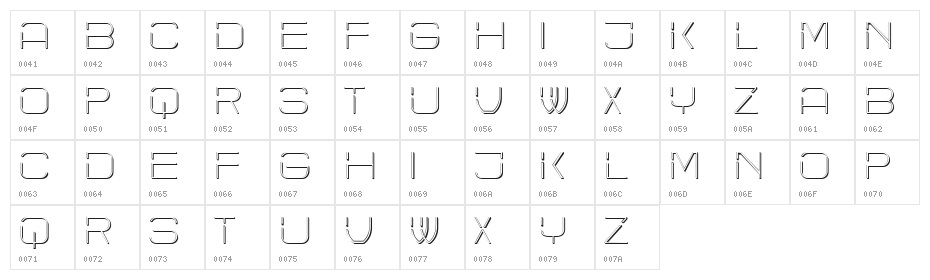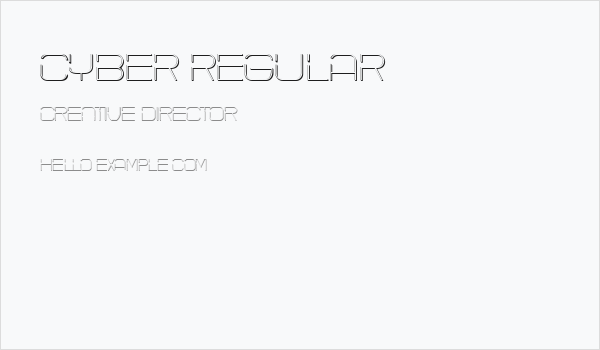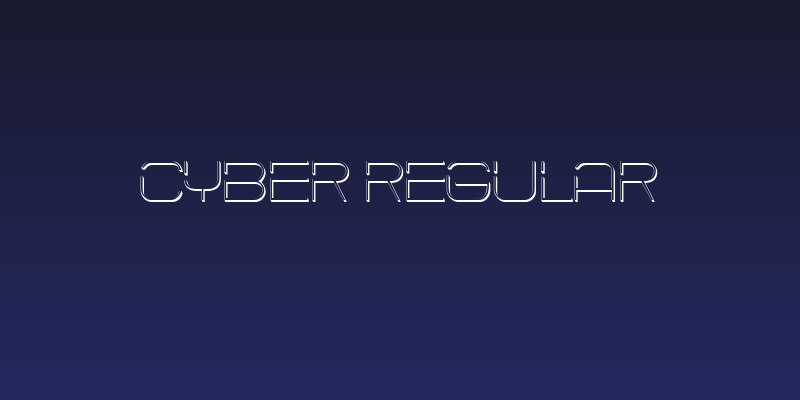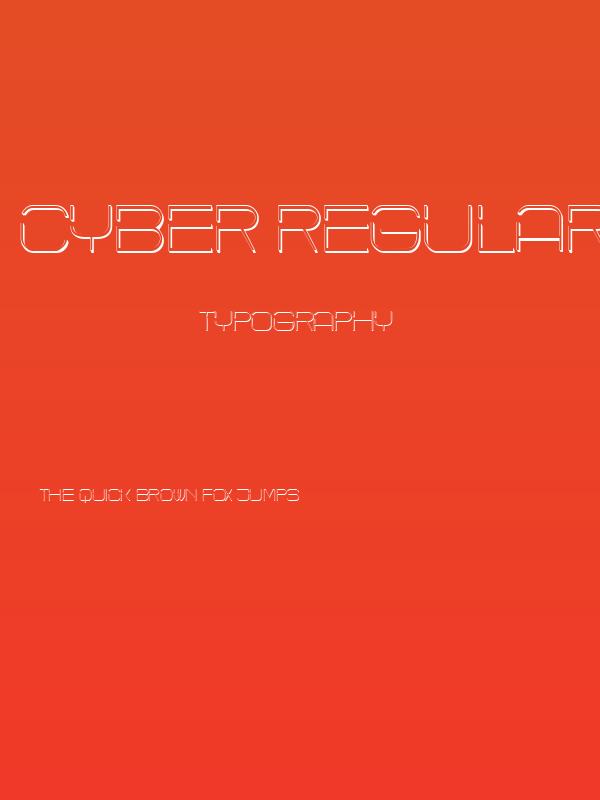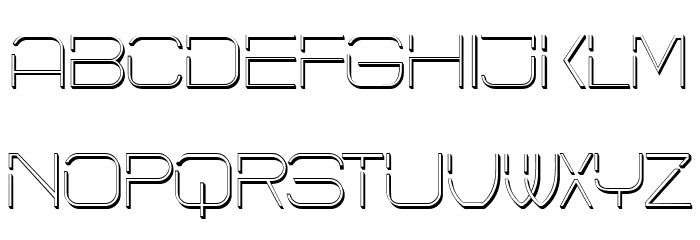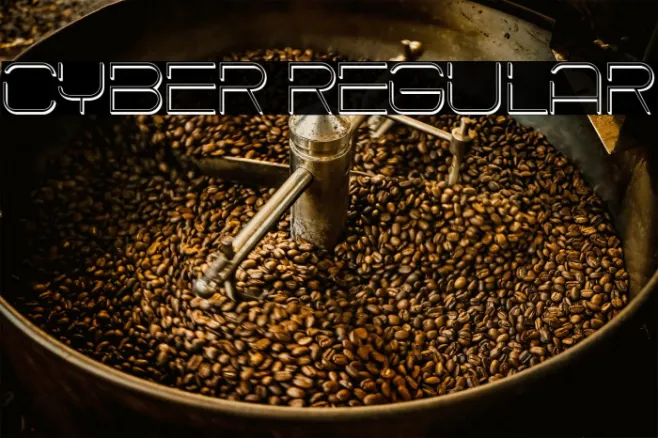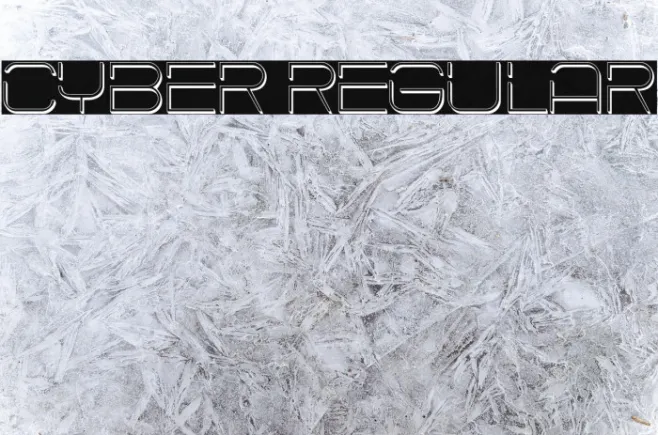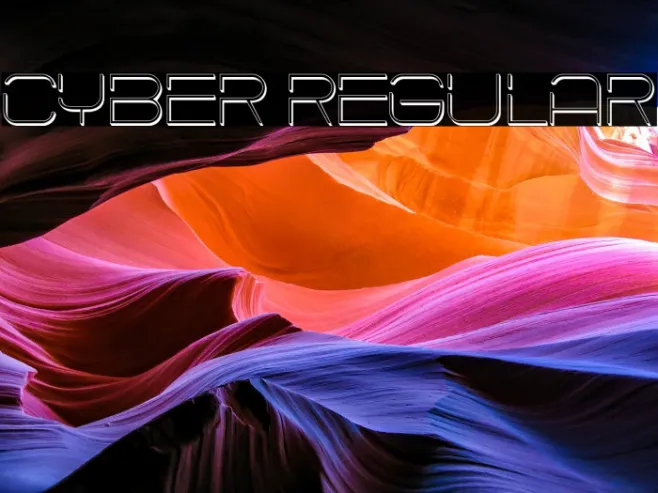
Cyber Regular Font
Cyber Regular Description
This font features a futuristic and geometric design with a distinct outline style. The characters are constructed with clean, straight lines and sharp angles, giving it a modern and technical appearance. The uppercase letters are uniform in height, and the design incorporates a double-line effect that enhances its digital and cybernetic aesthetic. The font is highly legible, making it suitable for various design applications that require a sleek and contemporary look.
| Proposed Projects | Ideal for technology branding, sci-fi movie posters, video game titles, and digital interfaces. |